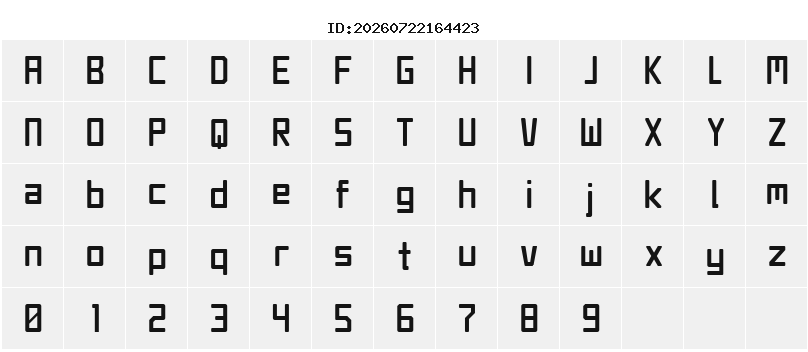
• Font Name: Jet Set
• Designer: CaptainFalcon
• Description: Jet Set was built with FontStruct
About Jet Set.ttf
Jet Set.ttf is a modern, elegant sans-serif font designed for ultimate readability and visual harmony. Perfect for branding, headlines, web design, and print materials.